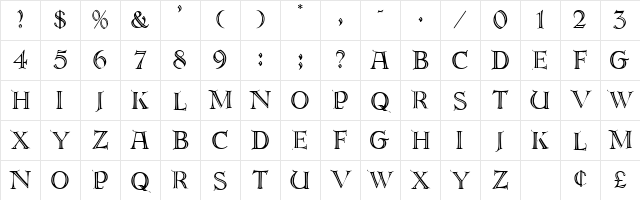
PatienceCaps Normal
Design Context for PatienceCaps
PatienceCaps is a composed and adaptable typeface that performs quietly and consistently across a wide range of design contexts.